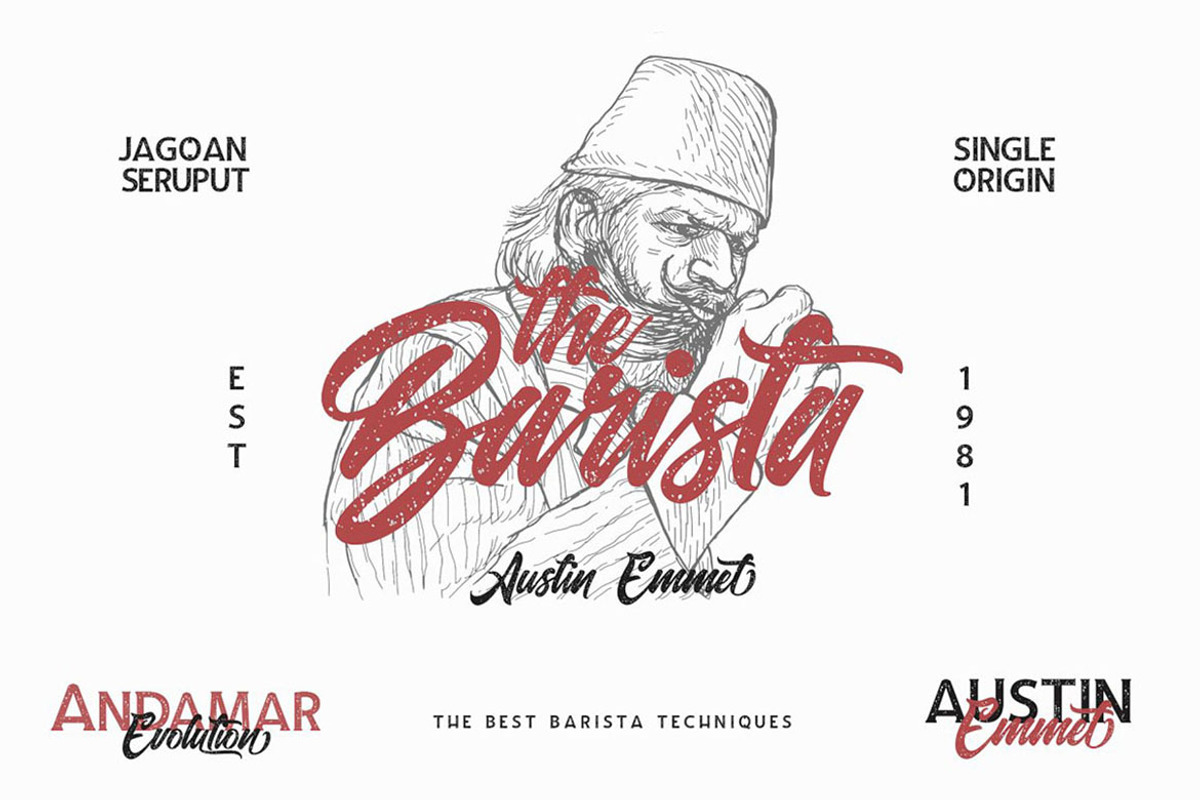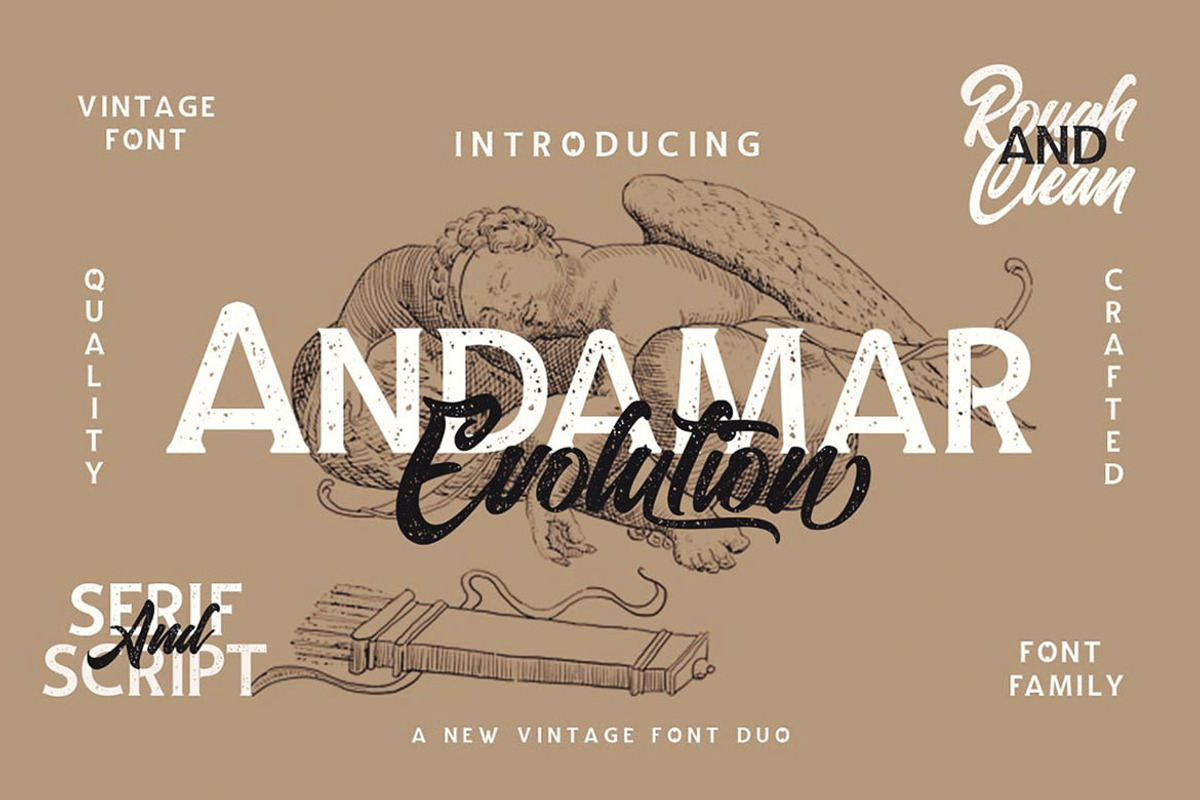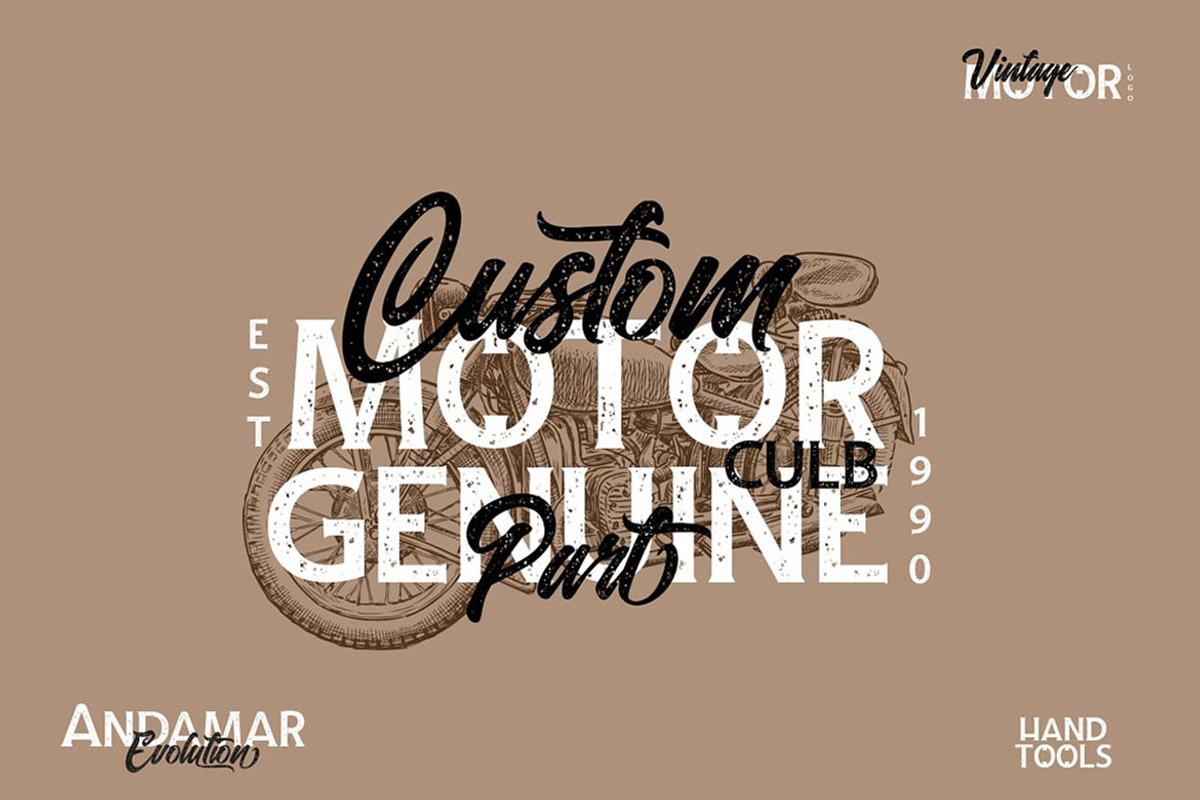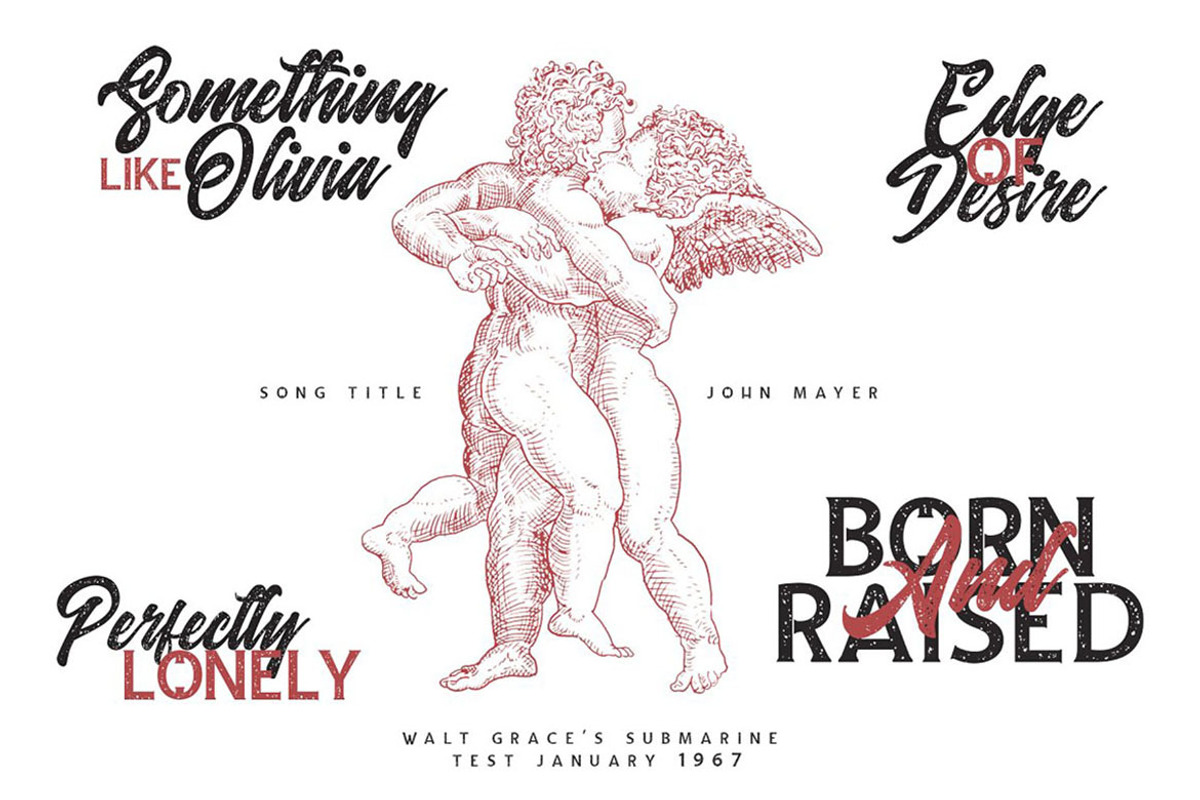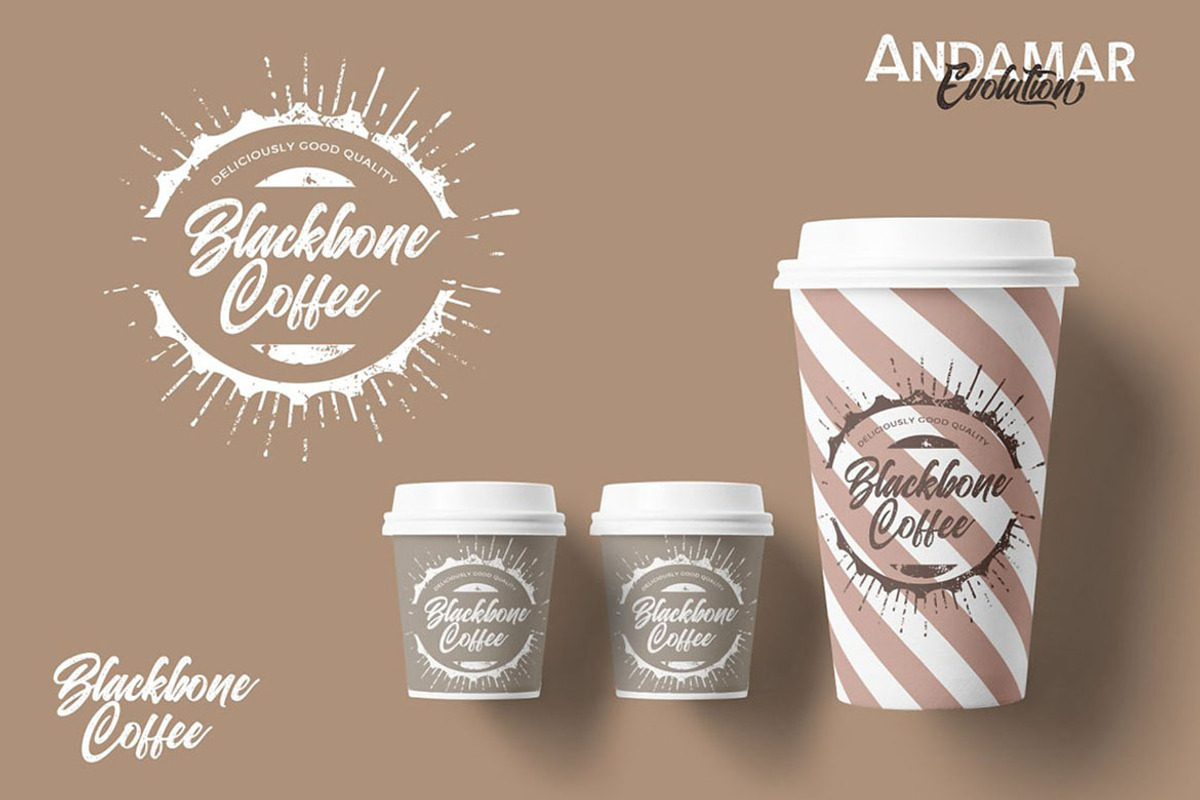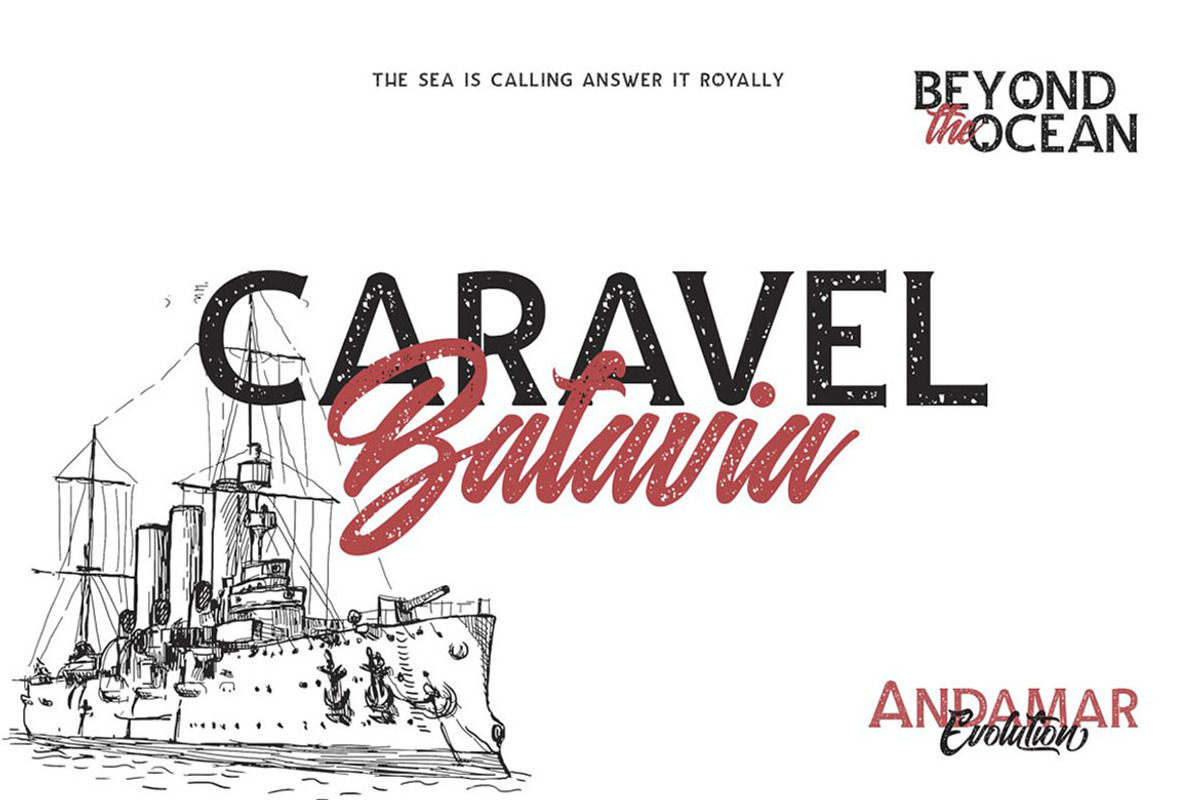
Andamar Font Family
A font family that is inspired by urban or freestyle artworks. Font combination with serif and script font in more versions. Serif font work great with any vintage style branding projects.
Script comes with casual or marker style and lot of stylistic alternates you can create realistic headers. Both fonts also with rough font version & swashes. It works beautifully for personal branding, advertising or creative headers.